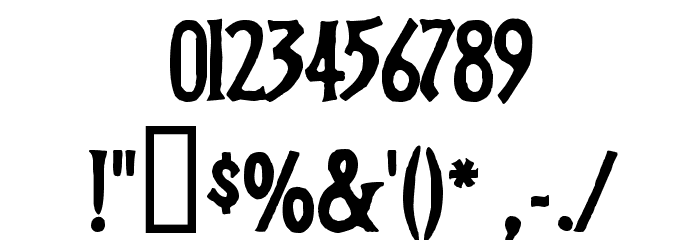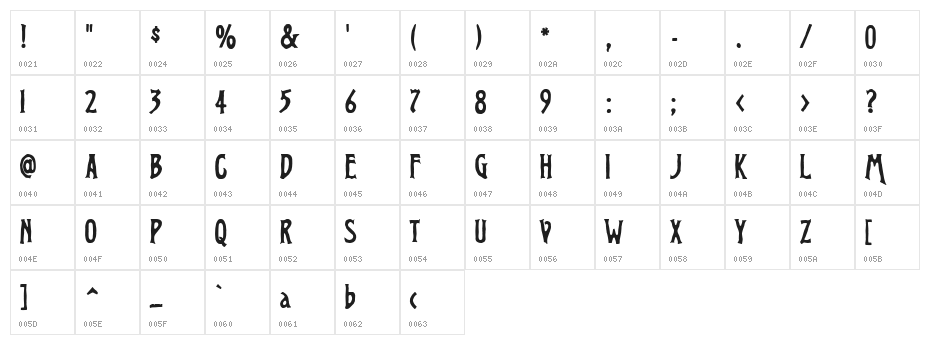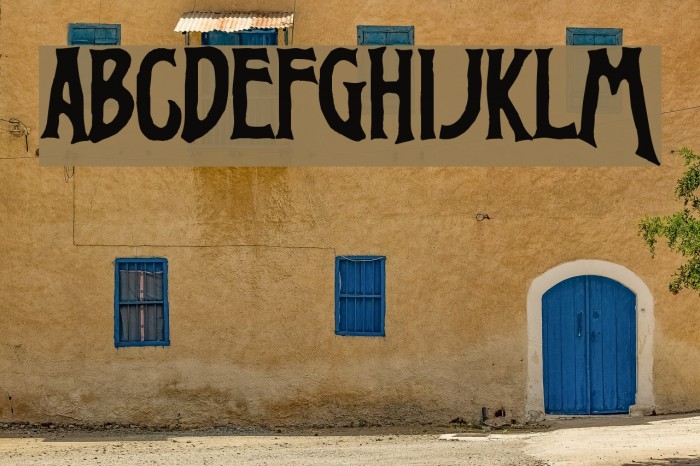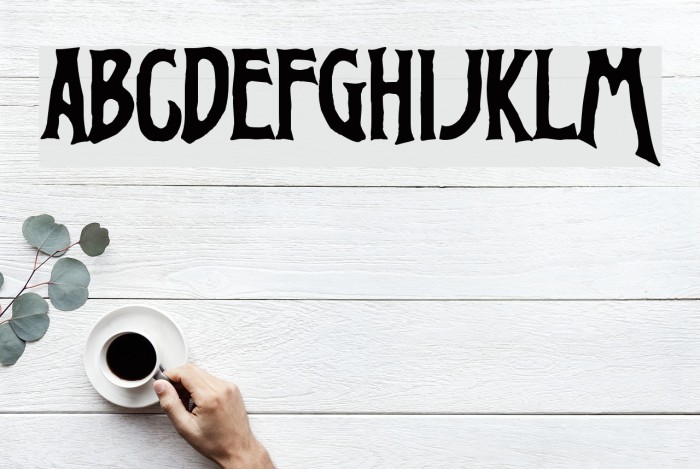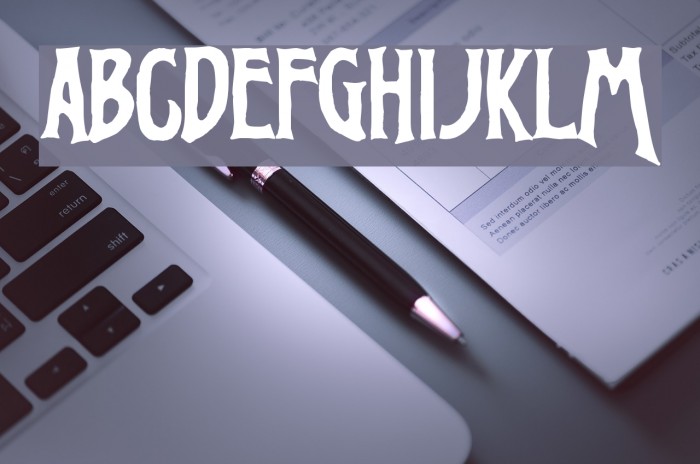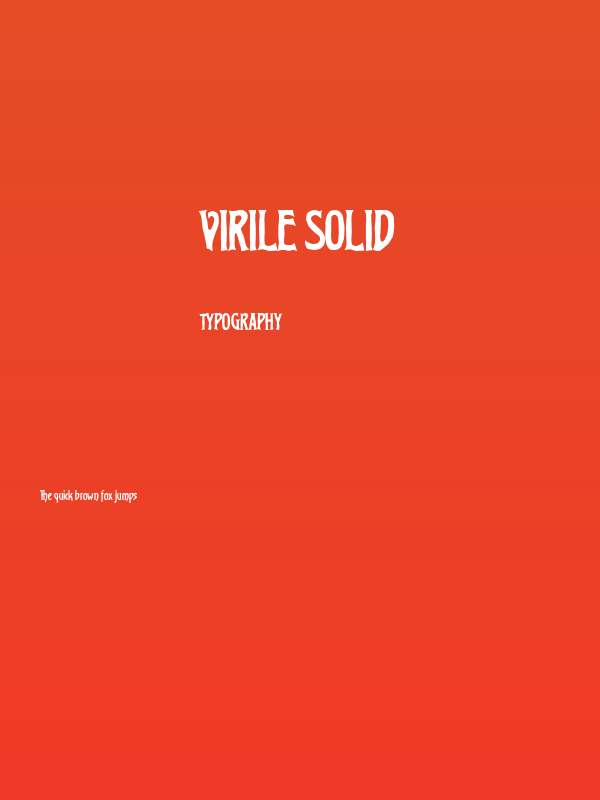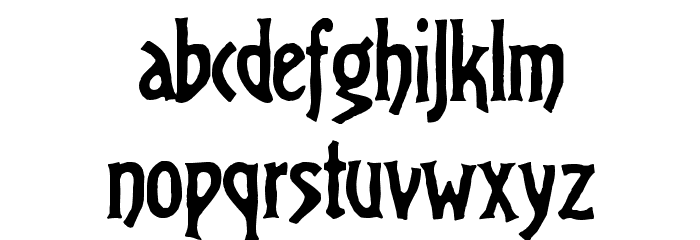
Virile Solid Font
Virile Solid Description
This font features a bold and dynamic style with sharp, angular edges and a slightly distressed appearance. The uppercase letters are tall and commanding, while the lowercase letters maintain a consistent style with unique, artistic flair. The numerals are equally bold, ensuring they stand out in any design. Special characters are creatively designed to match the overall aesthetic, making this font suitable for attention-grabbing headlines and artistic projects. Its distinctive style is reminiscent of vintage or gothic influences, yet it maintains a modern edge.
| Overall Style | Vintage, Modern |
| Proposed Projects | Ideal for posters, album covers, branding projects, and any design requiring a bold, artistic touch. |